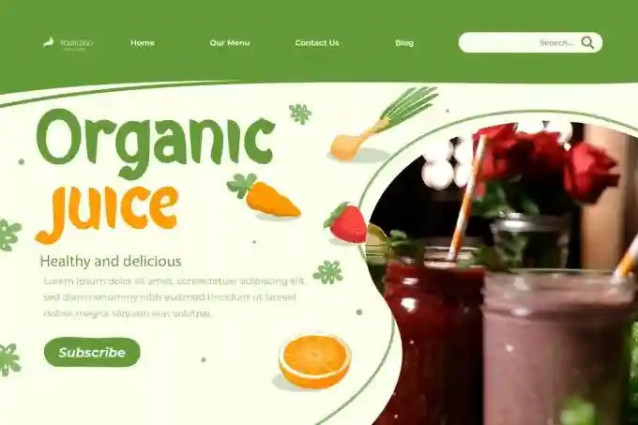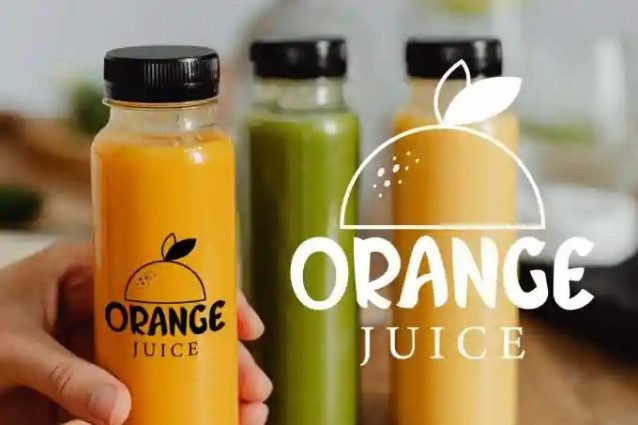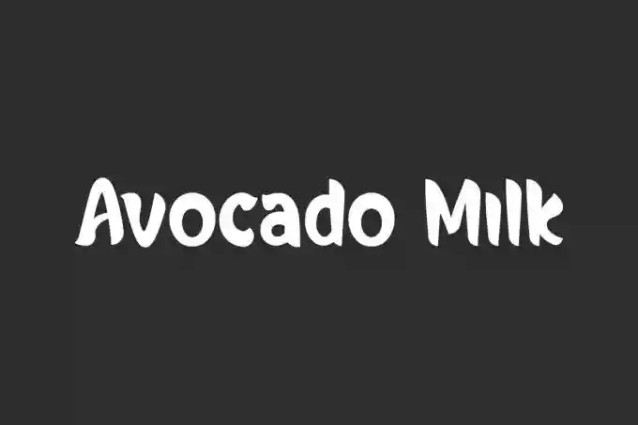
Avocado Milk Font
Avocado Milk Font is the perfect choice. This bold and quirky display font adds a fun, youthful feel to any project. Whether you’re working on food packaging, lifestyle branding, or creative posters, this font will instantly grab attention.
Designed to Stand Out
Avocado Milk Font is a playful, fun yet modern display font designed by VinType Studio. The characters that this font has are very distinctive and perfect for making your designs look fun and modern, such as brochure, custom design, gift box, greeting card, invitation, label, poster, product packaging, quote, screen printing, website, and more!
Avocado Milk Font includes full set of Uppercase and Lowercase Basic Characters, Numerals, Punctuation, and Symbol. The company’s creative team seems to have to start using this font because its charm can attract many eyes, such as advertisement, bakery and pastry, café, food and beverage, handicraft, homeware, etc.